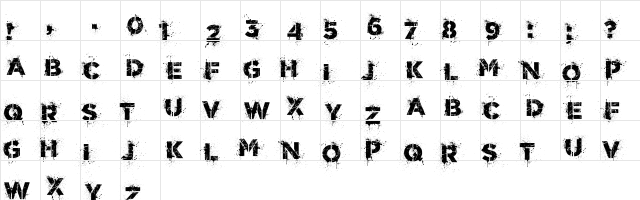
Drunk Millionaire Regular
Design Context for Drunk Millionaire Typeface
Drunk Millionaire is a composed and adaptable typeface that performs quietly and consistently across a wide range of design contexts.